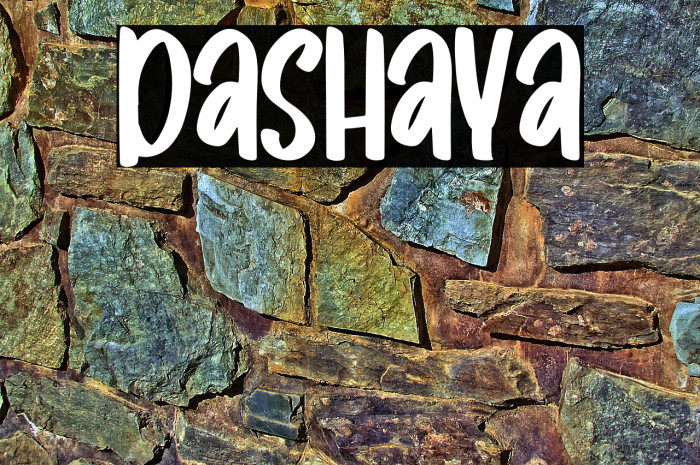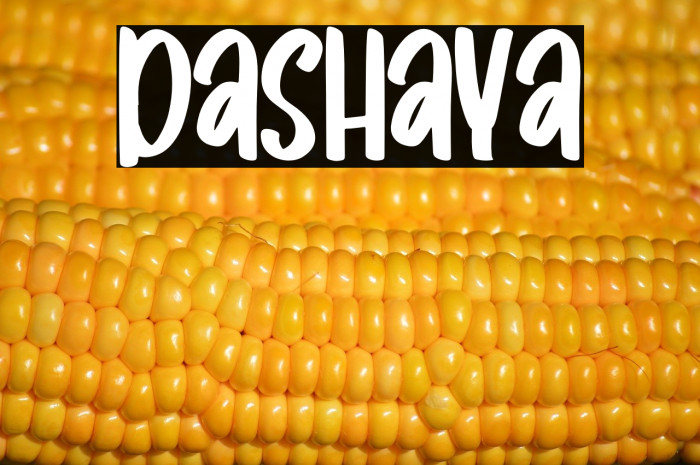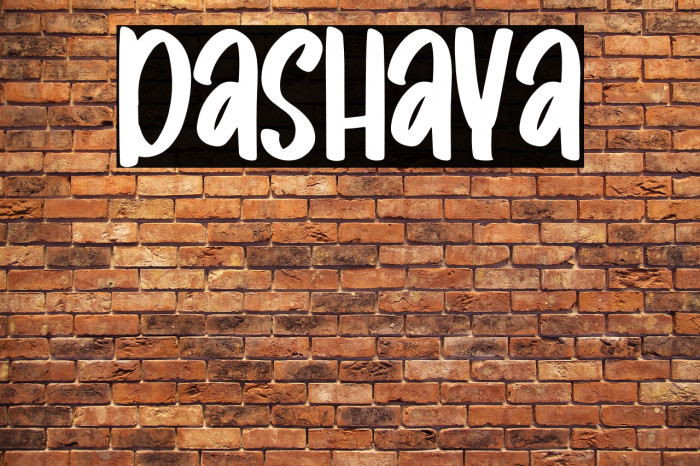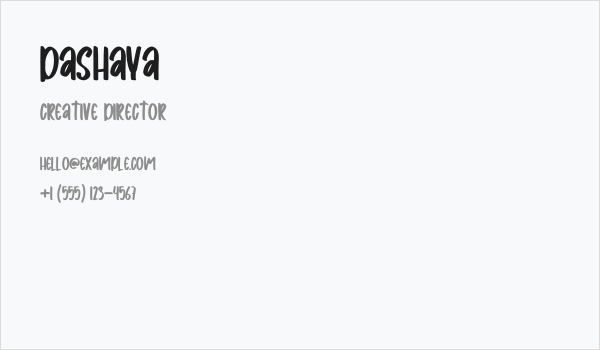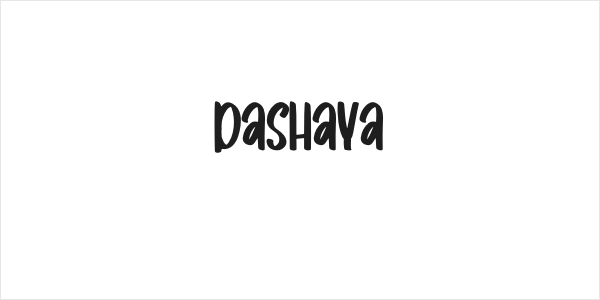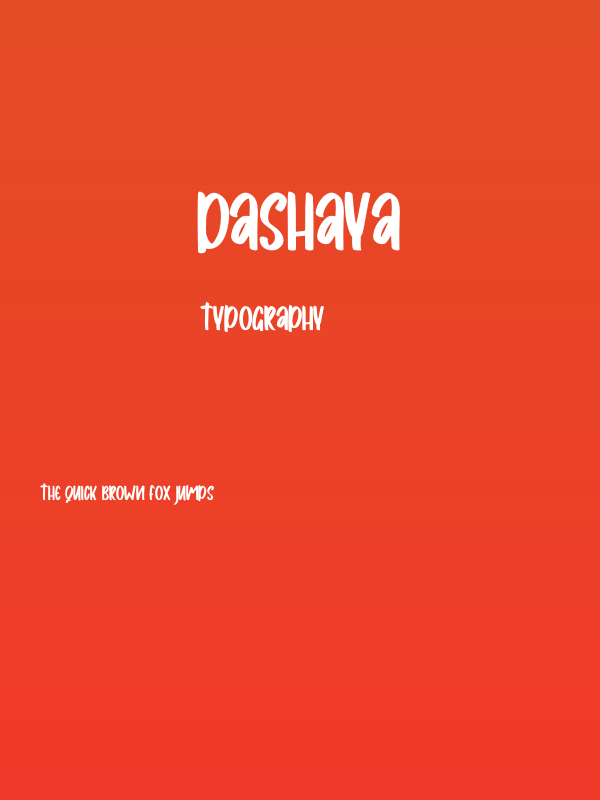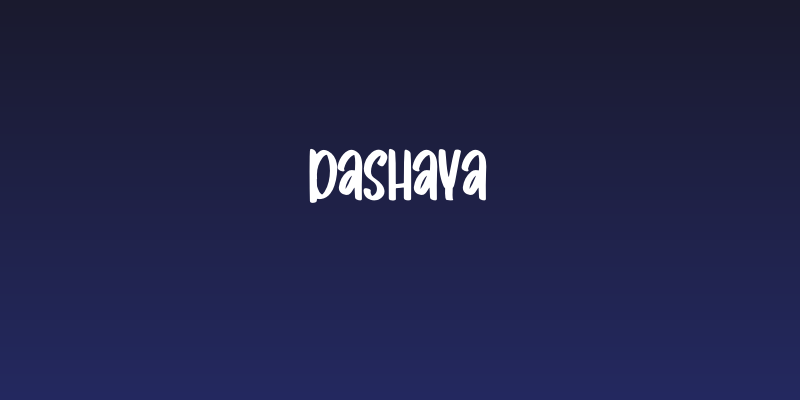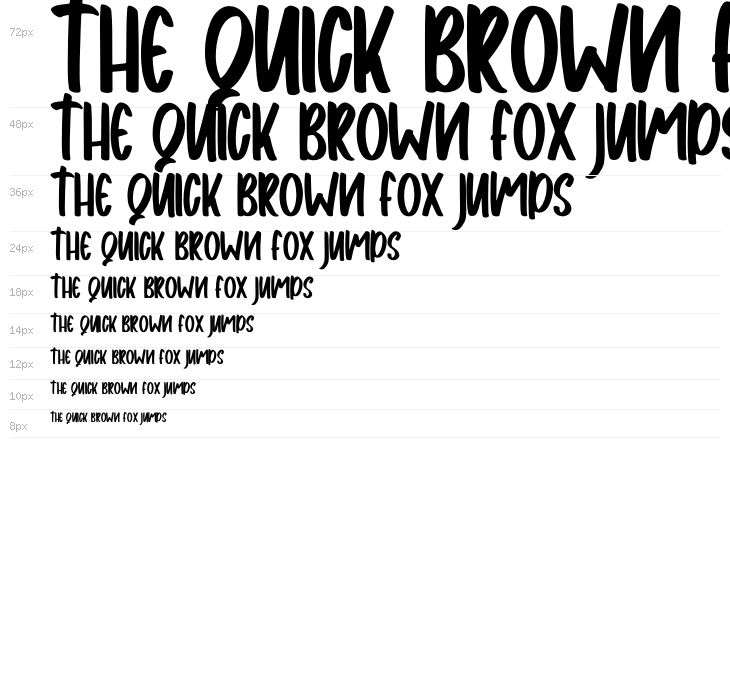
Dashaya Font
Dashaya Description
This font features a bold and energetic handwritten style, characterized by thick strokes and a playful, casual appearance. The letters are slightly slanted, adding a dynamic feel, while the rounded edges contribute to a friendly and approachable look. The uppercase and lowercase letters maintain a consistent style, with a noticeable uniformity in height and width. The numbers and special characters follow the same design principles, ensuring a cohesive overall appearance. This font's lively and informal nature makes it suitable for creative and expressive projects.
| Proposed Projects | Ideal for greeting cards, posters, social media graphics, and branding projects that require a fun and informal touch. |